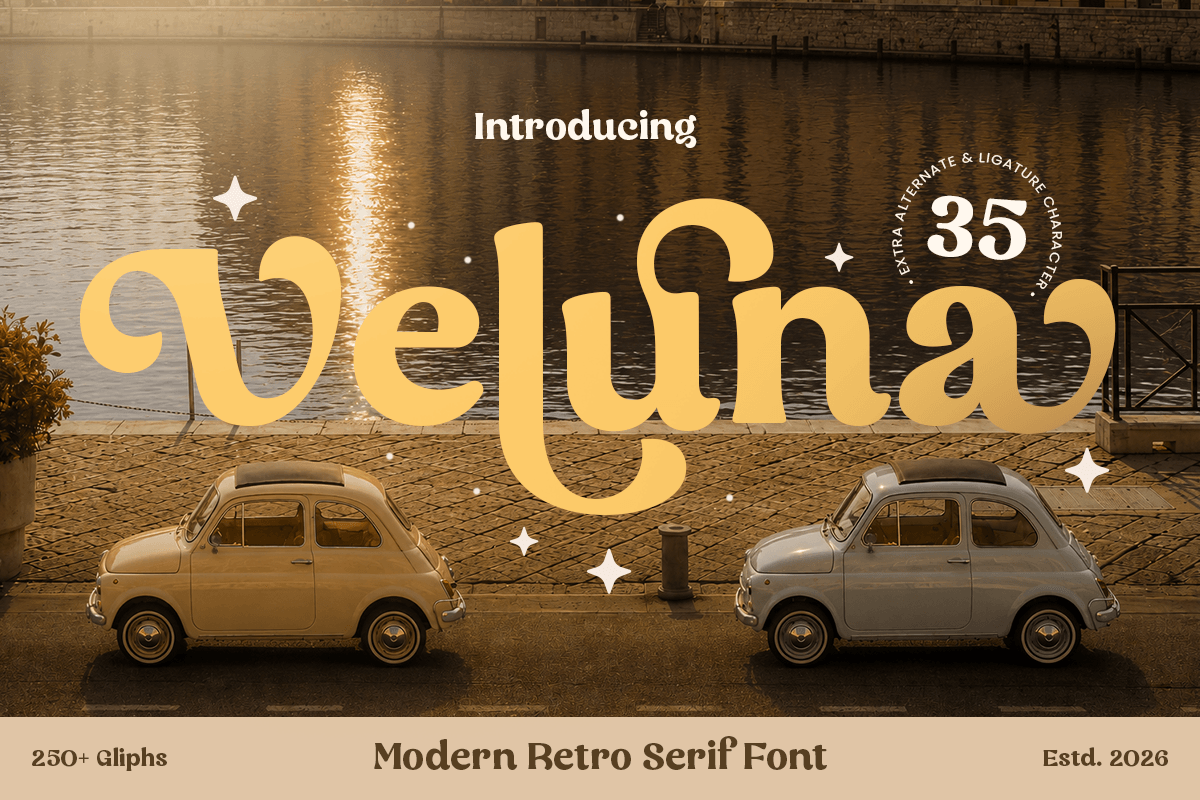
Veluna
-Modern Retro Serif FontVeluna - Modern Retro Serif Font
Veluna is a modern retro serif font crafted for stylish branding, nostalgic typography, and elegant visual identity. With classic serif shapes, refined contrast, and a warm vintage-inspired character, it brings a timeless and memorable look to every design.
Designed for logos, vintage branding, packaging, editorial headlines, boutique identity, fashion layouts, and social media graphics, Veluna blends retro charm with modern readability. Perfect for designers who want a serif font with classic personality, stylish details, and premium vintage appeal.
Veluna Font Features
Uppercase & lowercase
Retro serif characters
Alternates & ligatures
Multilingual support
Professional kerning
Veluna Font Perfect For
Logo design, vintage branding, luxury packaging, fashion identity, editorial headlines, boutique designs, magazine covers, social media posts, product labels, and retro typography projects.